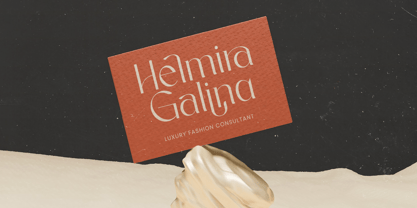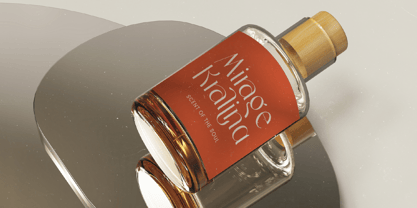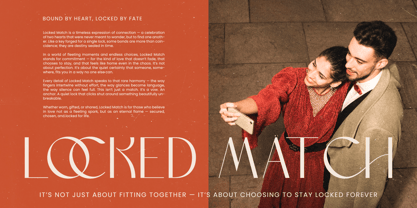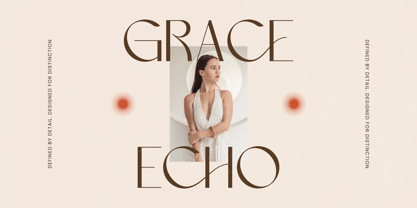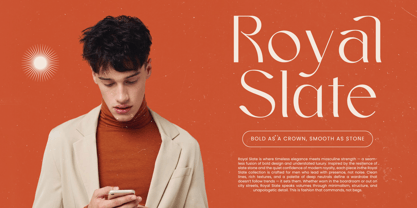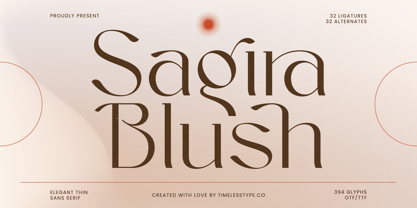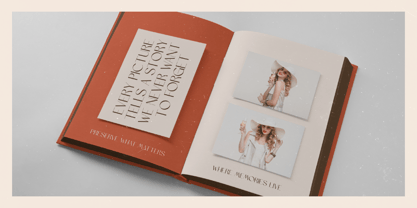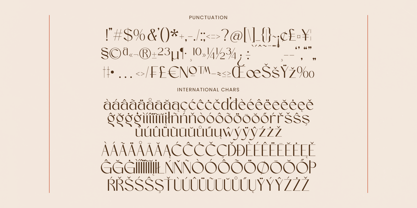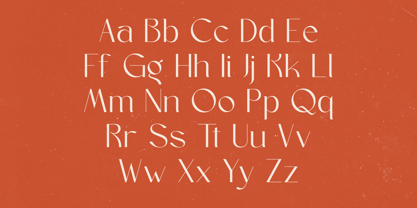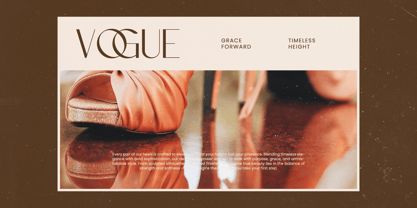
Sagira Blush
The Sagira Blush Font Family was designed by Heru Utama Putra and published by Timelesstype Studio. Sagira Blush contains 2 styles and family package options. More about this family
Sagira Blush - Elegant Thin Sans Serif Font , from Timelesstype, Suitable for any projects such as: logos, branding projects, homeware designs, product packaging, mugs, quotes, posters, shopping bags, t-shirts, book covers, name card, invitation cards, greeting cards, label, photography, watermark, special events, and all your other luxury and beautiful projects that need a Luxury Serif taste.